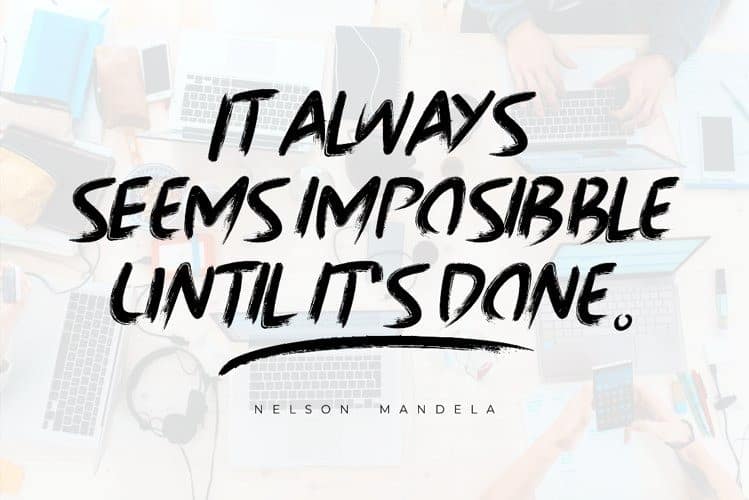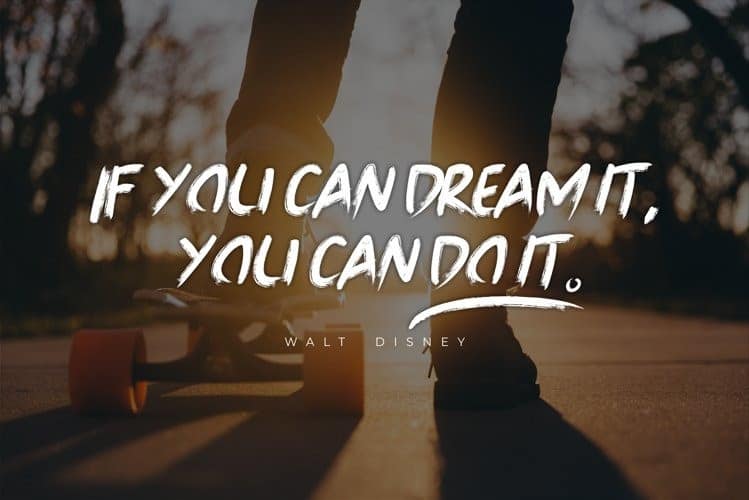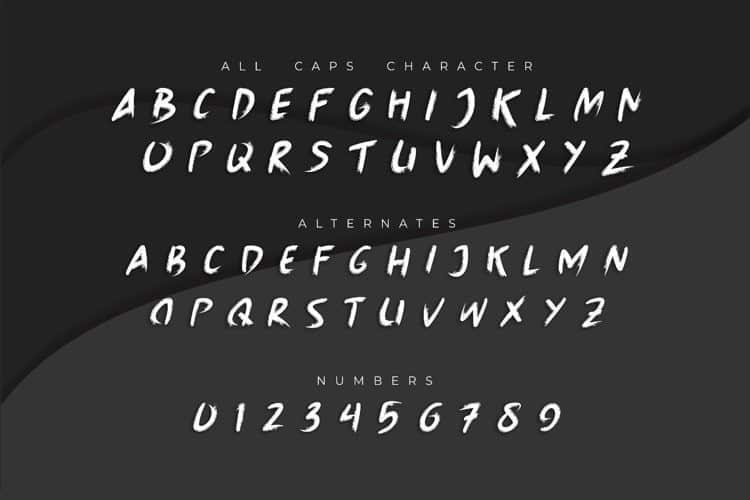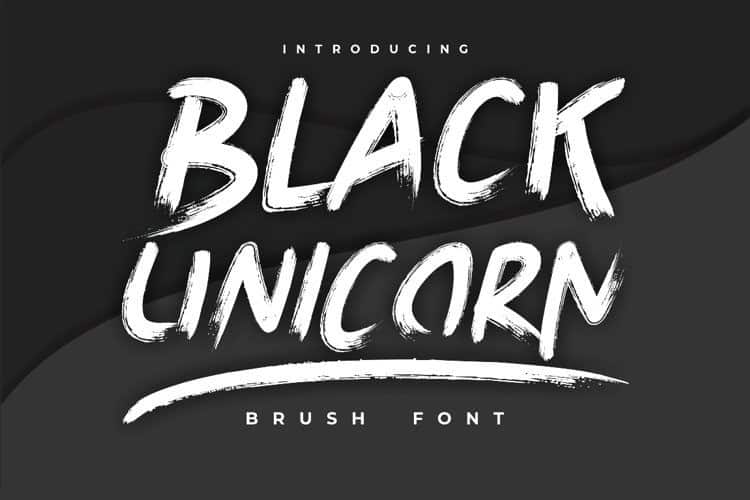
Black Unicorn Brush Font
Black Unicorn Brush Font, with authentic dry brush imperfections and a very bouncy baseline. This font features lots of alternate ligatures and swashes to make it really look like your own handwriting. Bring up swashes easily, just type the underscore character a few times. Perfect for your creative projects this season.